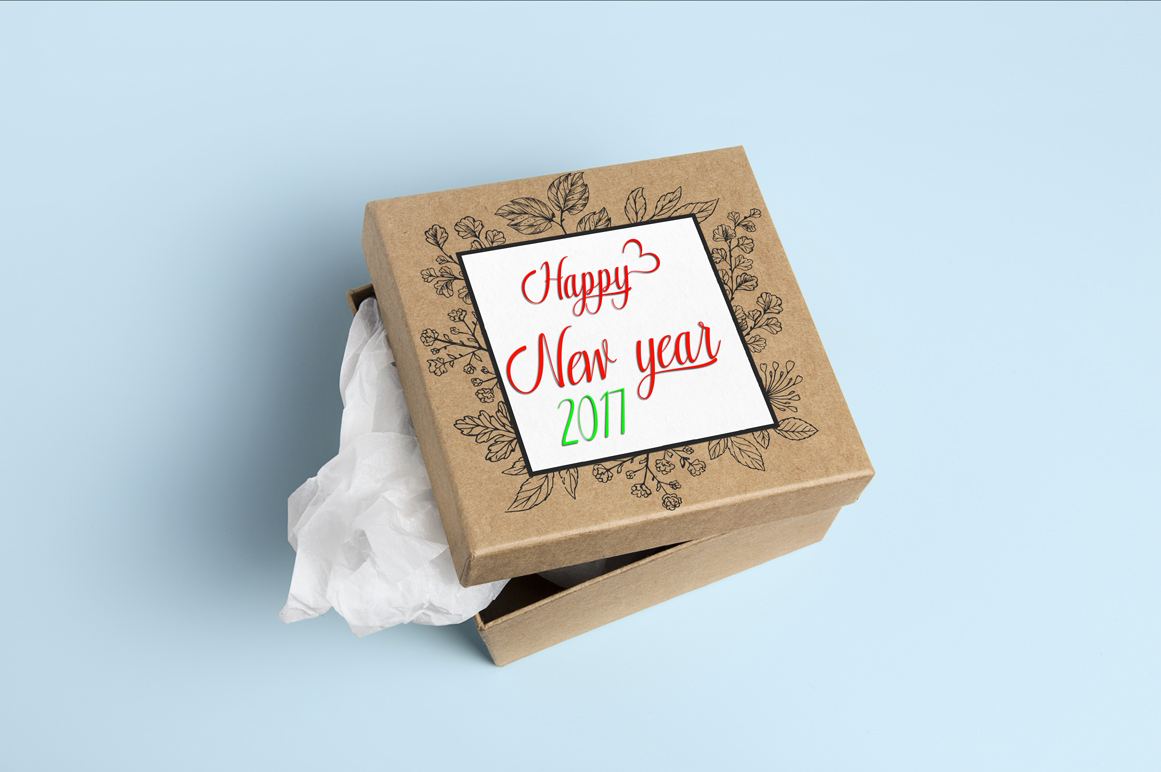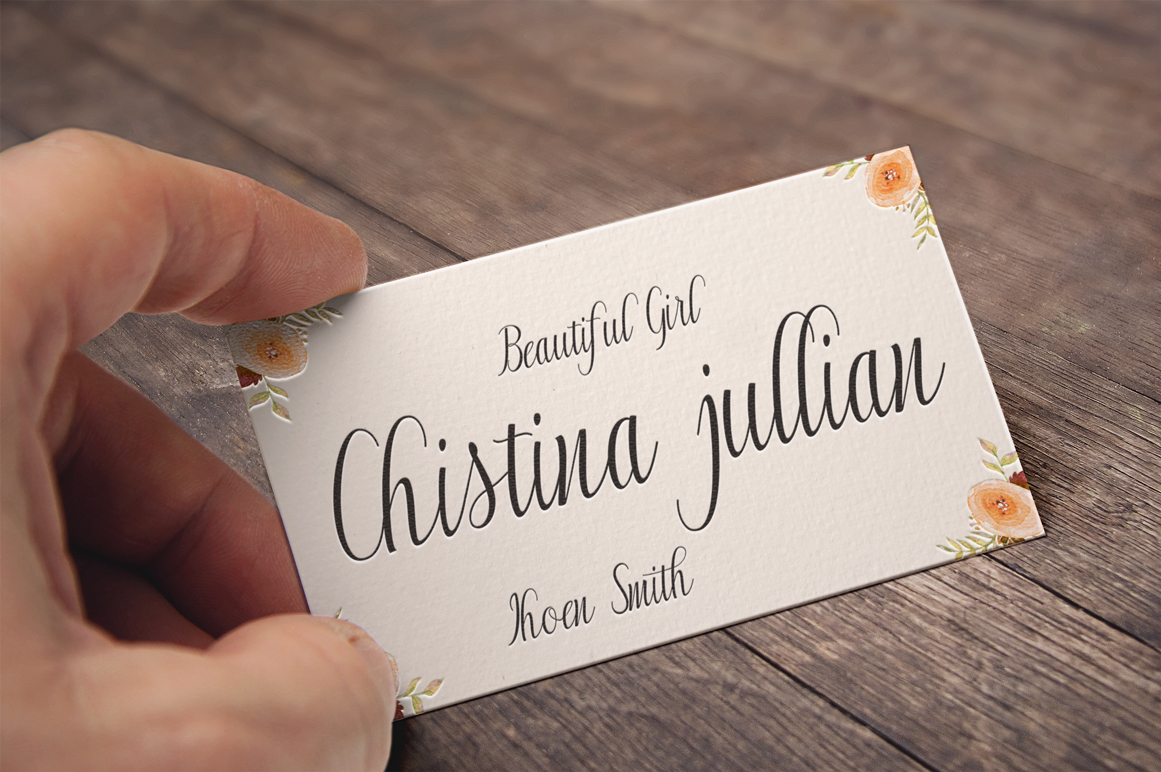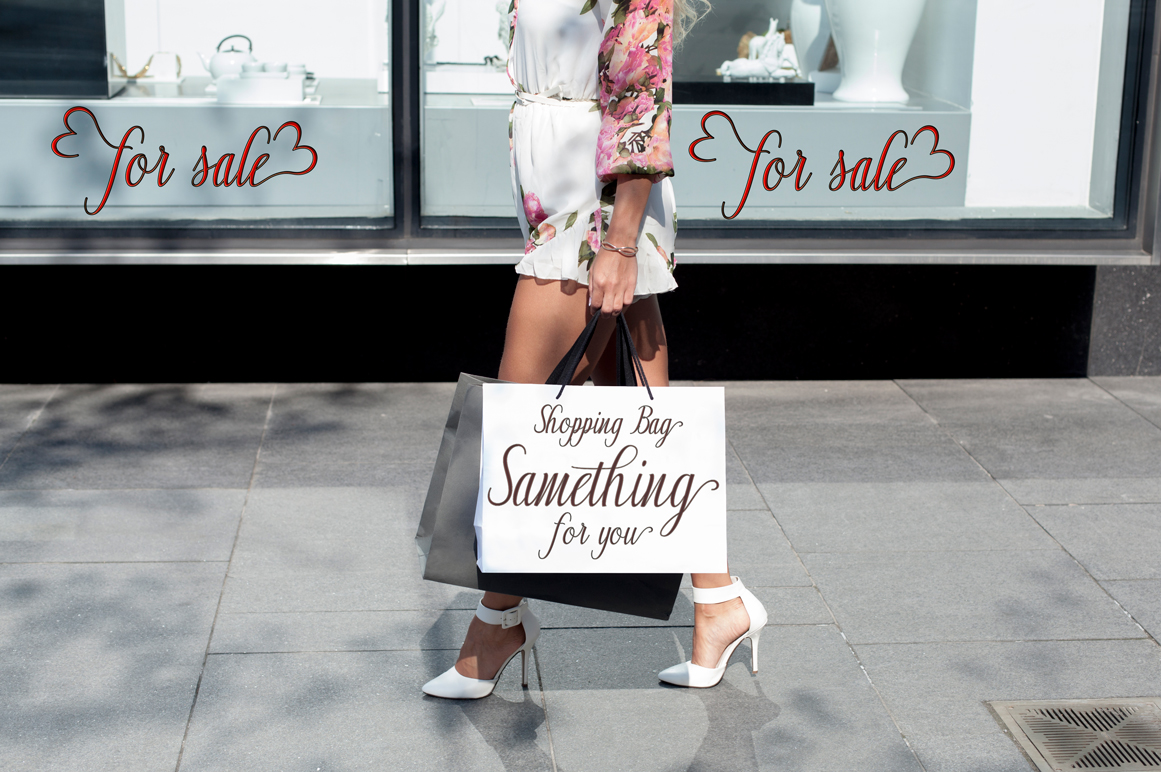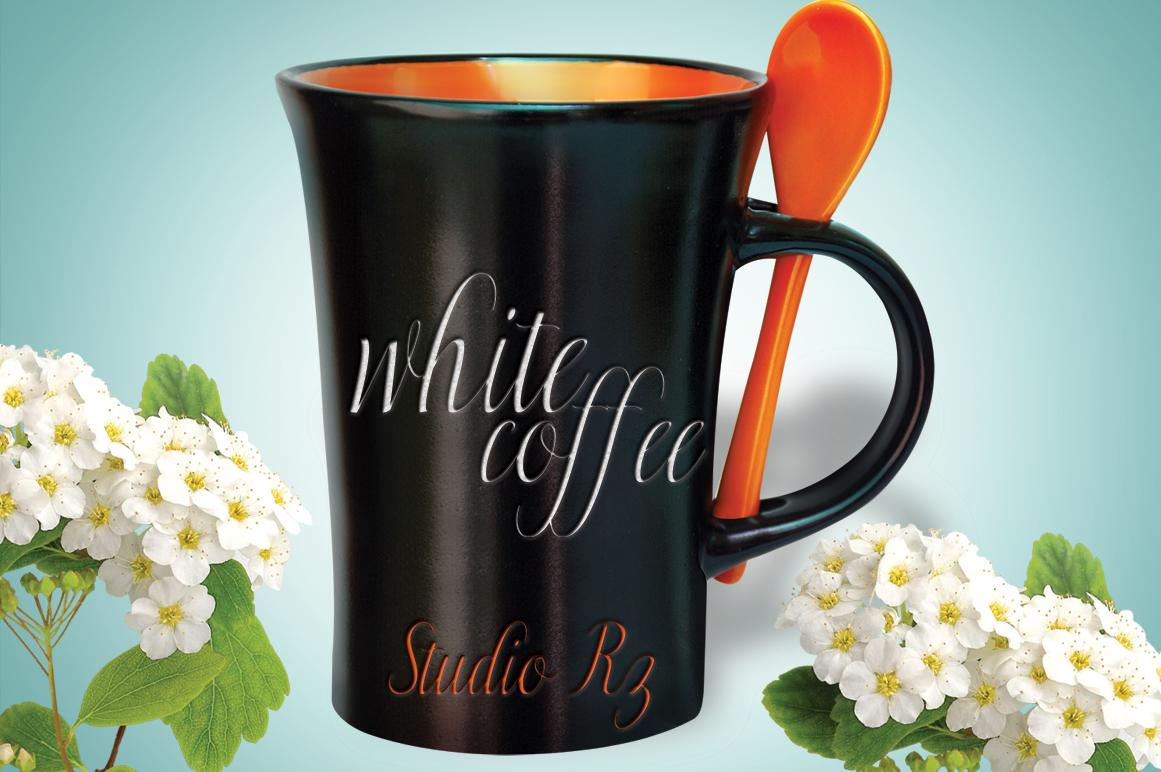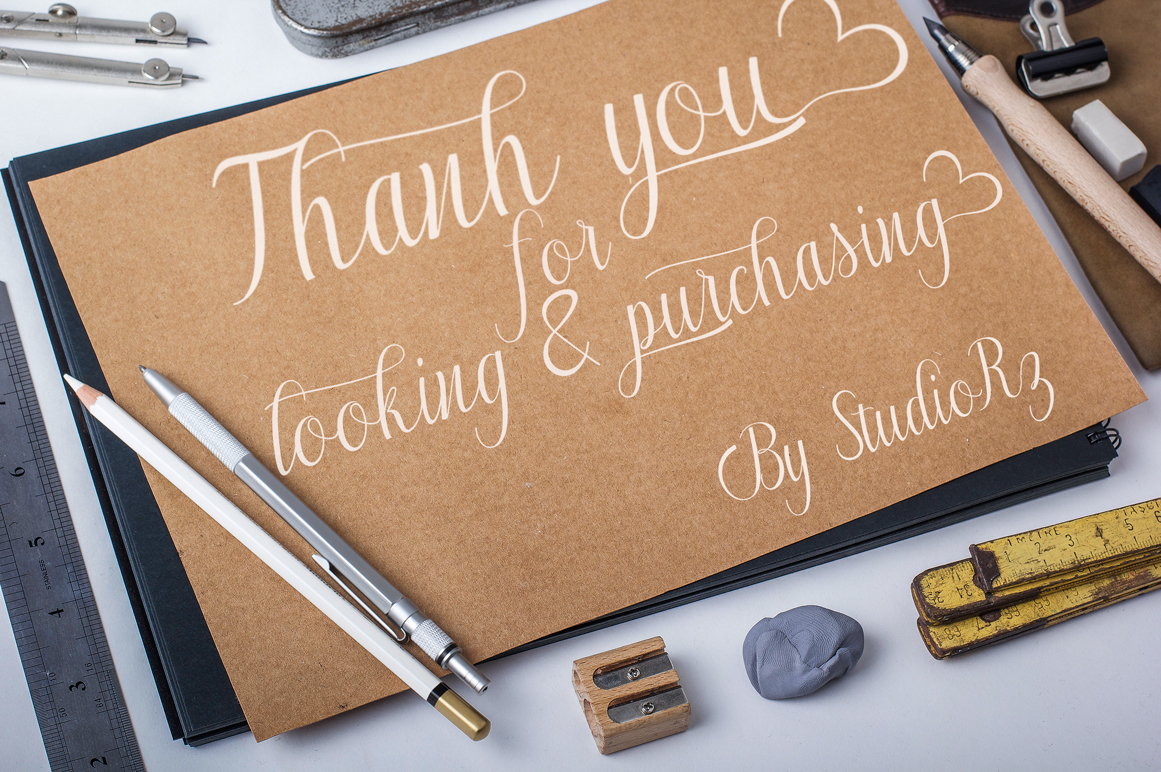
Discover the Elegance of Authentic Font: Elevate Your Designs with a Classy Touch
In the world of typography, the right font can make all the difference in transforming a design from ordinary to extraordinary. For designers and crafters seeking to add a touch of sophistication and elegance to their projects, the Authentic font is an excellent choice. This thin, elegant handwritten font is not only beautiful but also highly legible, making it perfect for a wide range of applications.
What is Authentic Font?
Authentic font is a carefully crafted, handwritten typeface that exudes refinement and poise. Its thin strokes and elegant letterforms are designed to bring a sense of luxury and class to any project. Whether you’re working on a branding campaign, a wedding invitation, or a packaging design, Authentic font is sure to impress.
Key Features of Authentic Font
- Thin and Elegant: The font’s slender strokes and refined lettering create a sophisticated look that’s perfect for designs that require a touch of elegance.
- Highly Legible: Despite its delicate appearance, Authentic font is remarkably legible, making it suitable for both headings and body text.
- Versatile: This font can be used across various mediums, from digital platforms to print materials, without losing its charm.
- Handwritten: The authentic, handwritten feel of this font adds a personal touch to your designs, making them stand out in a crowded creative landscape.
Why Choose Authentic Font for Your Projects?
There are several reasons why designers and crafters are gravitating towards Authentic font:
- Uniqueness: In a sea of generic fonts, Authentic font offers a unique and distinctive look that can help your designs stand out.
- Professionalism: The elegance and sophistication of this font make it an excellent choice for professional projects, such as business branding, resumes, and formal invitations.
- Emotional Connection: The handwritten nature of Authentic font creates an emotional connection with the reader, making it perfect for projects that require a personal touch, such as greeting cards and event invitations.
How to Use Authentic Font Effectively
To get the most out of Authentic font, consider the following tips:
- Pair with Contrasting Fonts: Combine Authentic font with a bold, contrasting font to create visual interest and hierarchy in your designs.
- Adjust Line Spacing: Experiment with line spacing to find the perfect balance between elegance and readability.
- Play with Colors: While Authentic font looks stunning in black or dark colors, don’t be afraid to experiment with different colors to match your brand’s aesthetic or project requirements.
Authentic font is a versatile and elegant typeface that can elevate your designs to new heights. Its unique blend of sophistication, legibility, and personal touch makes it an excellent choice for designers and crafters looking to add a classy touch to their projects. Whether you’re working on a professional branding campaign or a personal craft project, Authentic font is sure to impress. So why not give it a try and discover the power of Authentic font for yourself?
With its wide range of applications and benefits, Authentic font is an essential addition to any designer’s or crafter’s toolkit. So go ahead, explore the elegance of Authentic font, and take your designs to the next level.